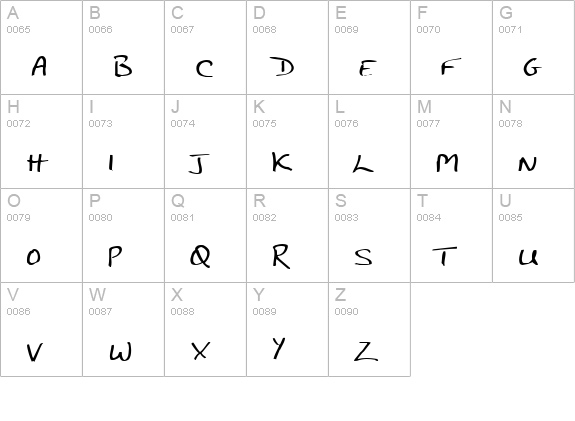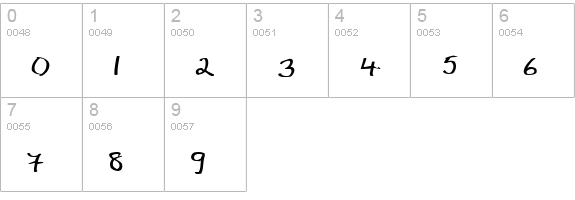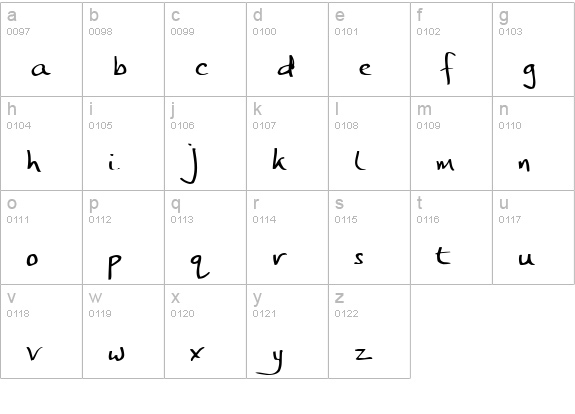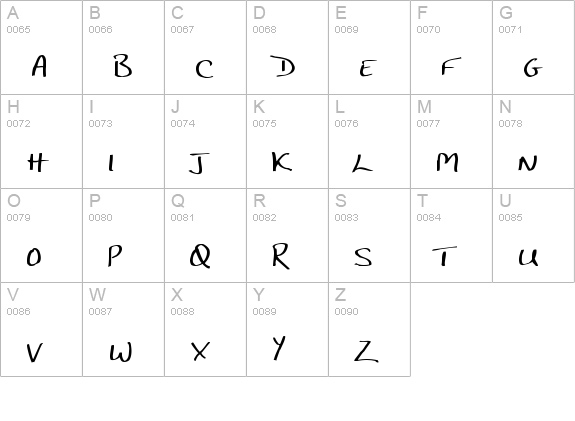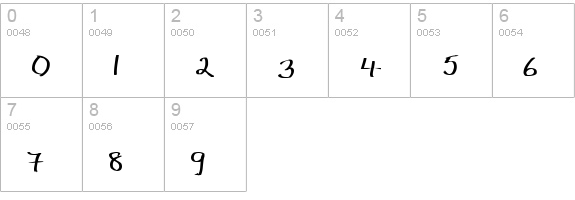
JP Hand Straight Font Details
JP Hand Straight font is a stunningly handcrafted typeface that exudes a sense of elegance and sophistication. This unique font features smooth, clean lines that create a harmonious balance between modernity and tradition. With its carefully designed letterforms, JP Hand Straight font is perfect for a wide range of creative projects, including logos, branding, invitations, and more. What sets JP Hand Straight font apart is its versatility and adaptability. Whether you're looking to create a whimsical design or a sleek and polished look, this font has got you covered. Its timeless appeal makes it suitable for both contemporary and classic designs, making it a must-have for any designer's toolkit. The best part? JP Hand Straight font is available for free! You can easily download this beautiful typeface at FontsMarket.com. By offering this font free of charge, we aim to make it accessible to designers of all levels, allowing them to experiment and unleash their creativity without any financial constraints. So, if you're looking for a font that combines style, versatility, and affordability, look no further than JP Hand Straight font. Download it today from FontsMarket.com and elevate your designs to new heights.